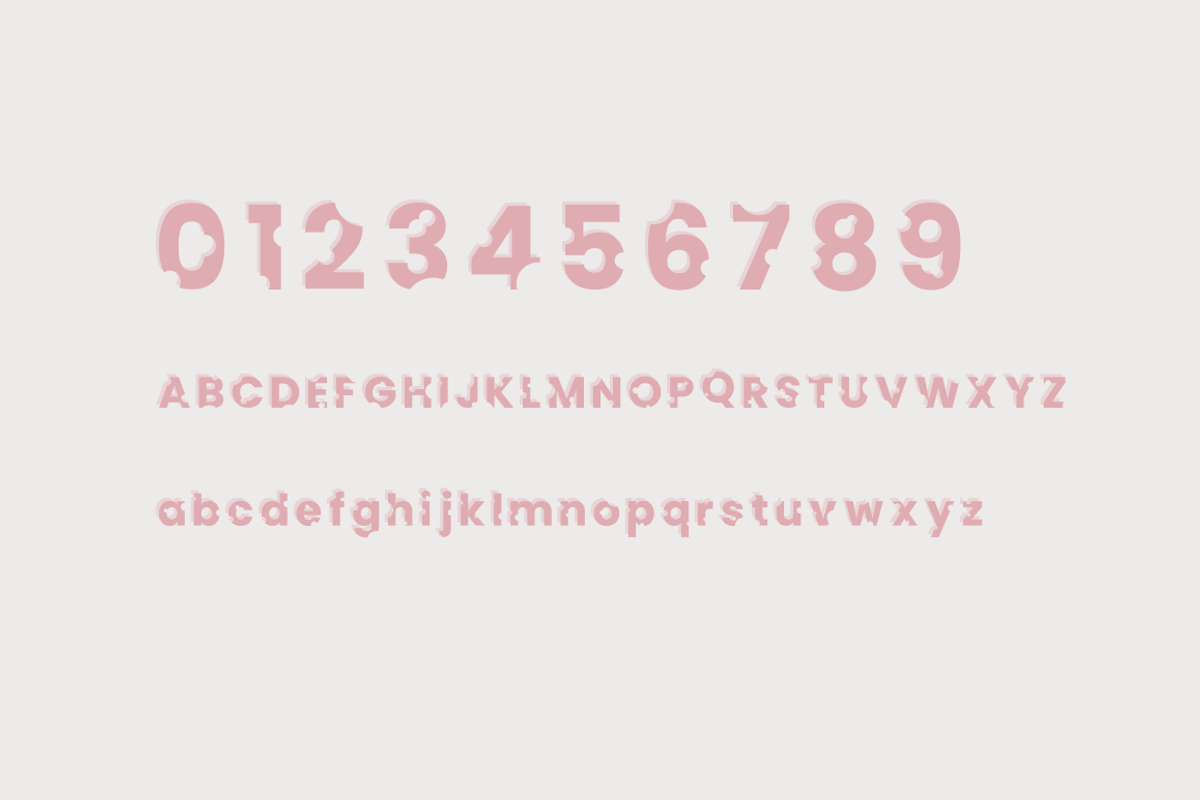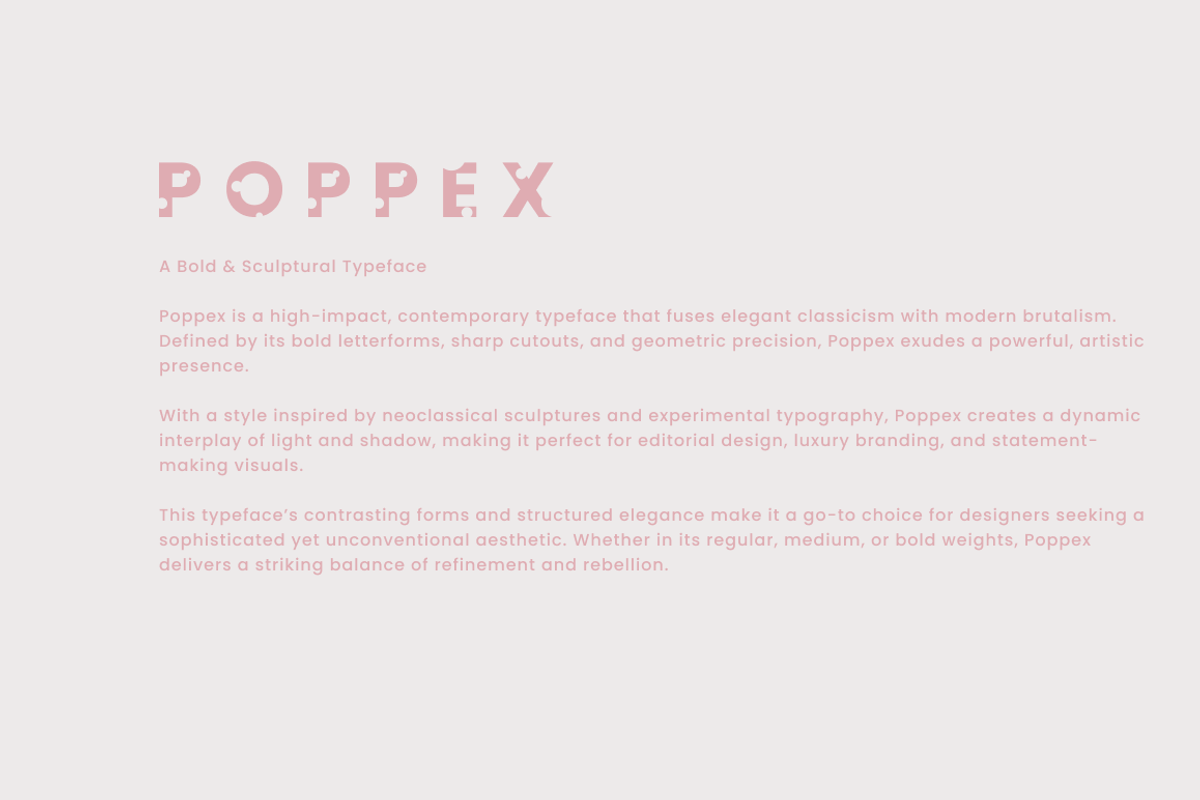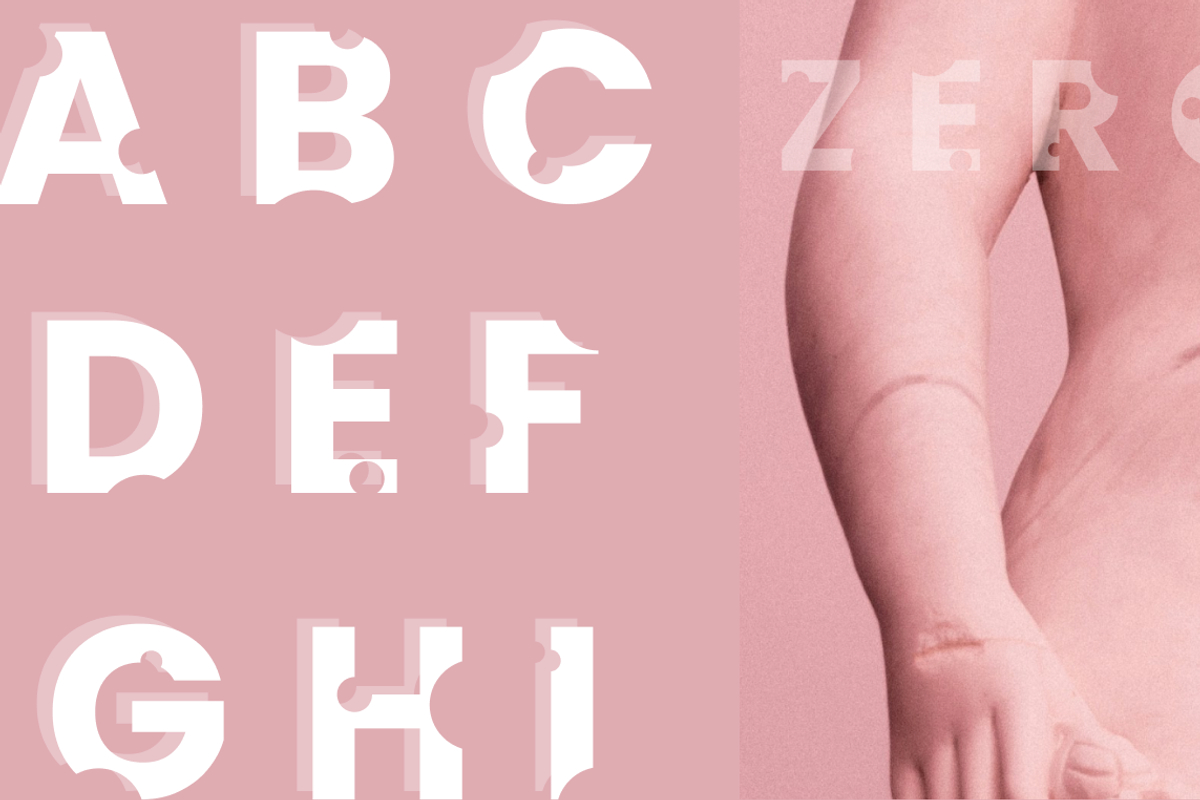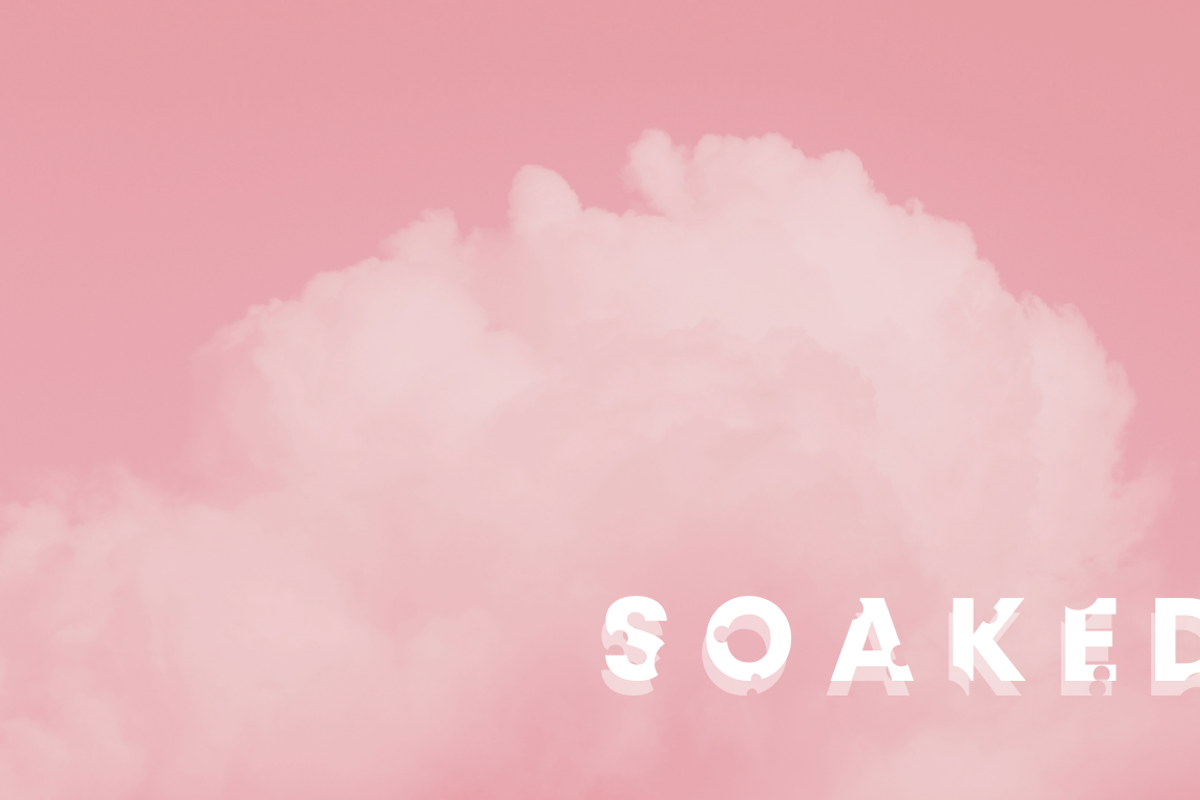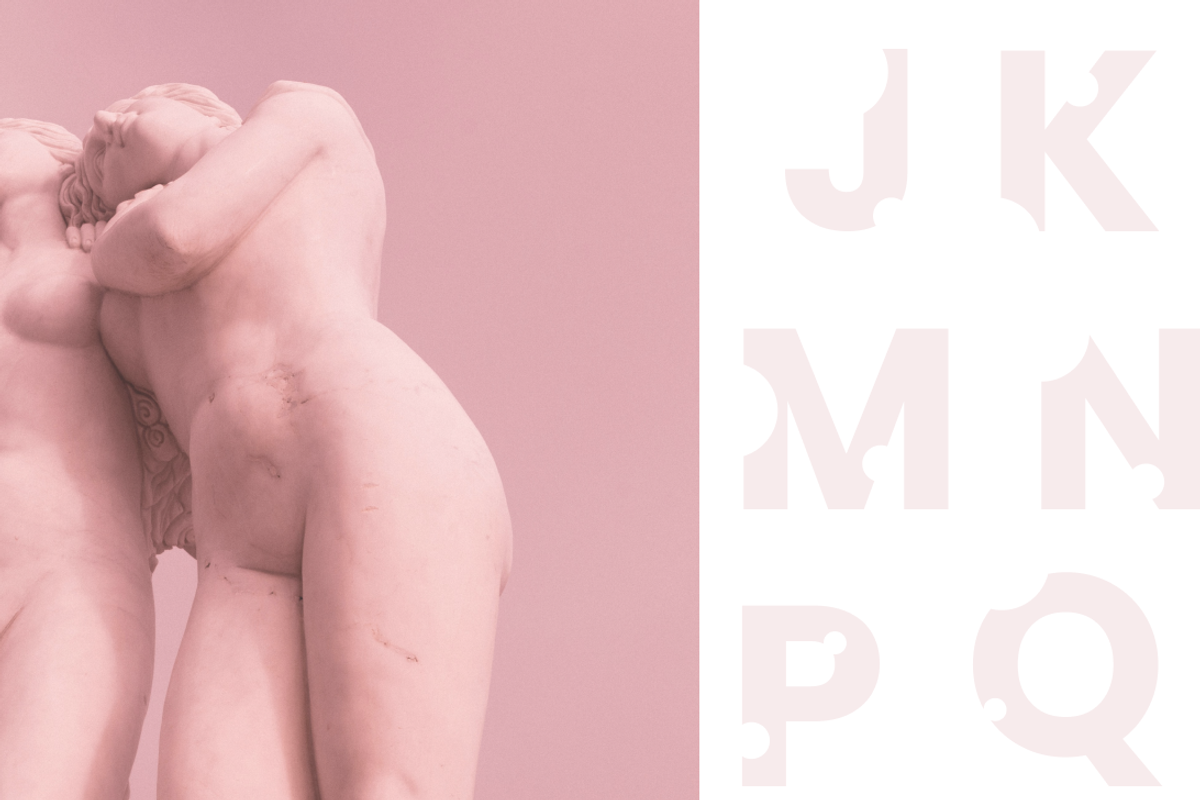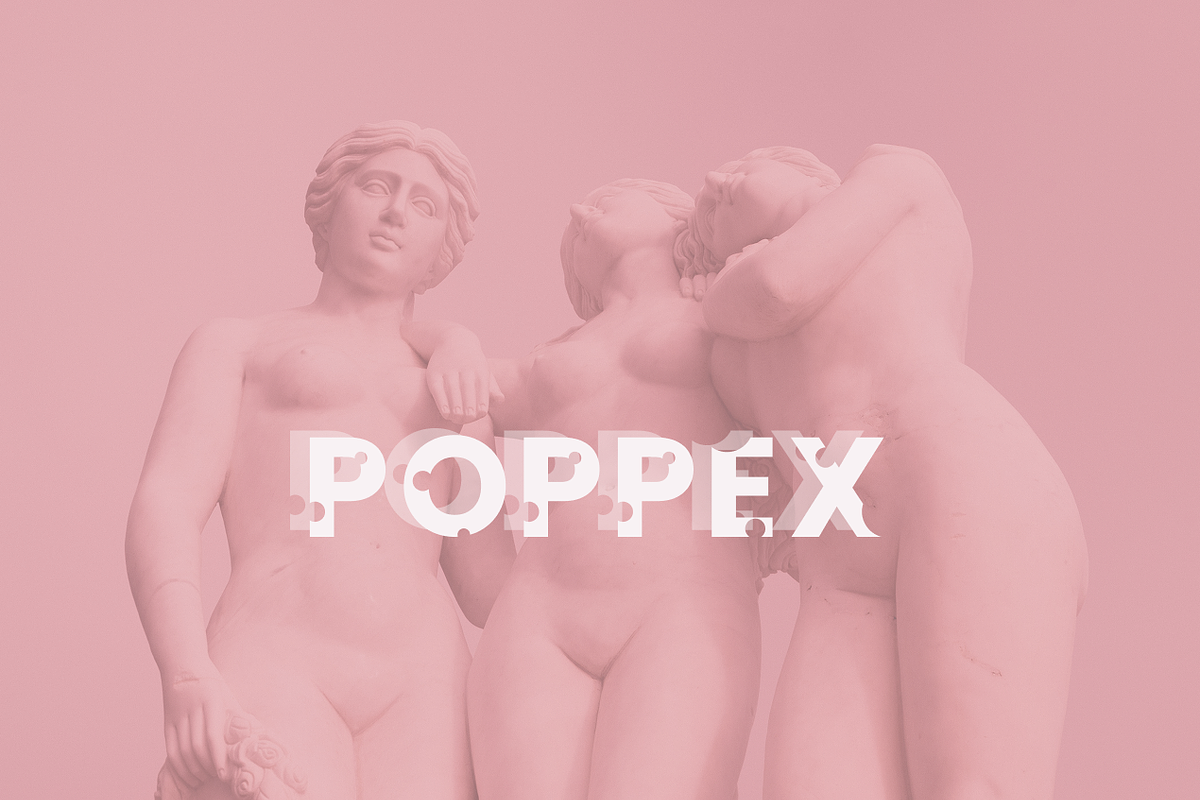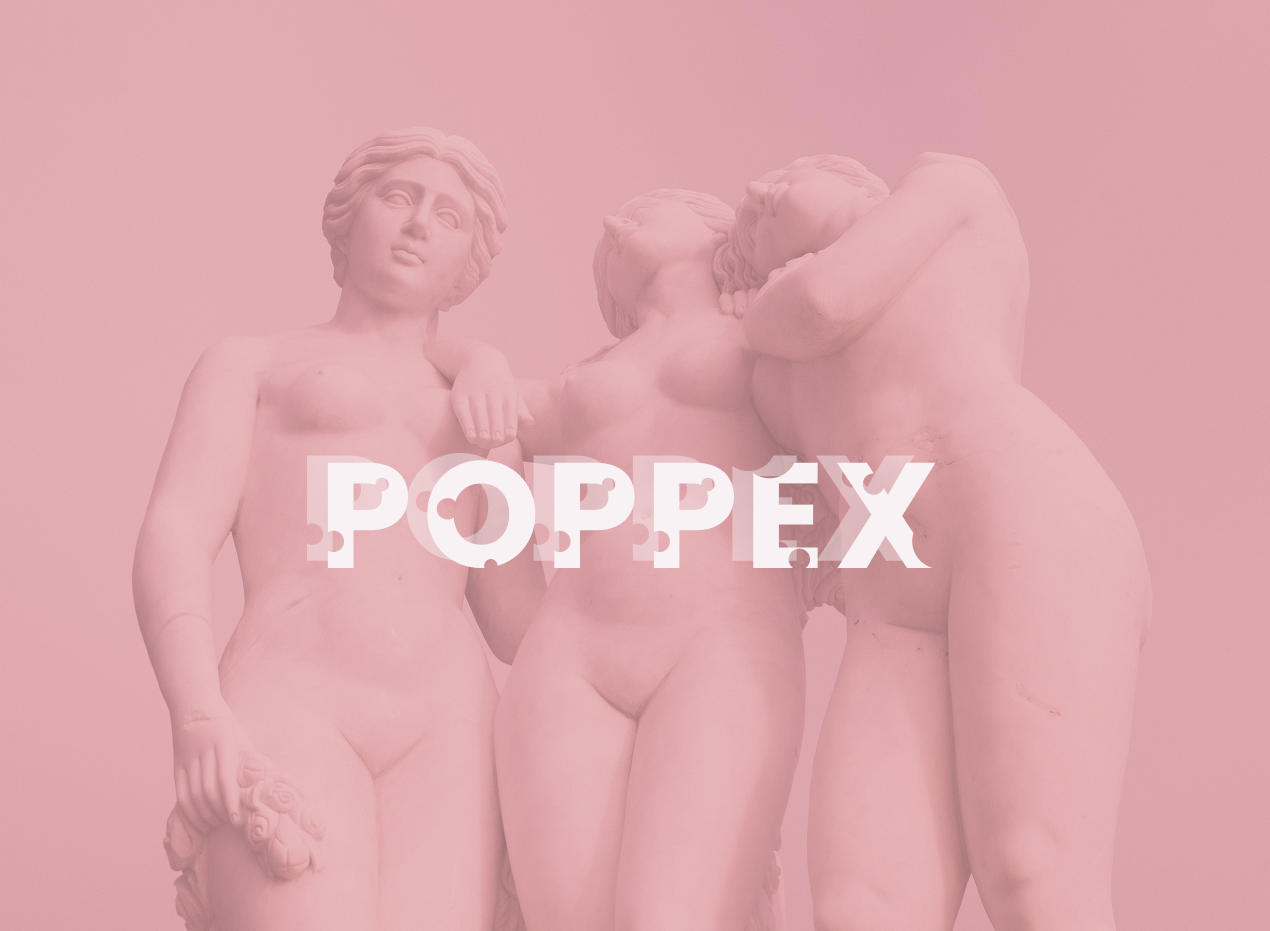
Poppex - Playful Serif Font
Poppex is a charming and playful serif font with a vintage touch. Its unique cutout design adds a whimsical feel, making it perfect for branding, posters, invitations, logos, and more! This decorative typeface is versatile and works well in both print and digital projects.